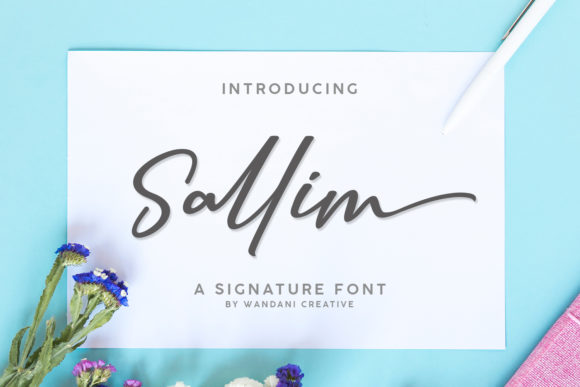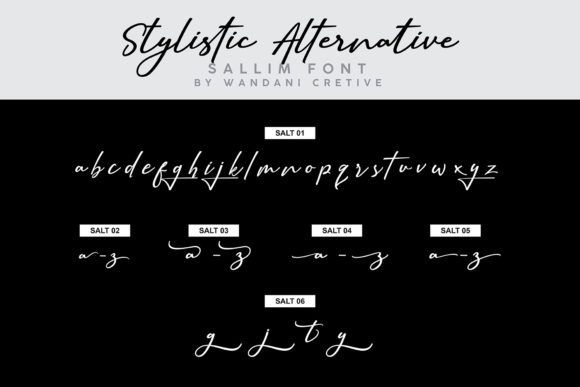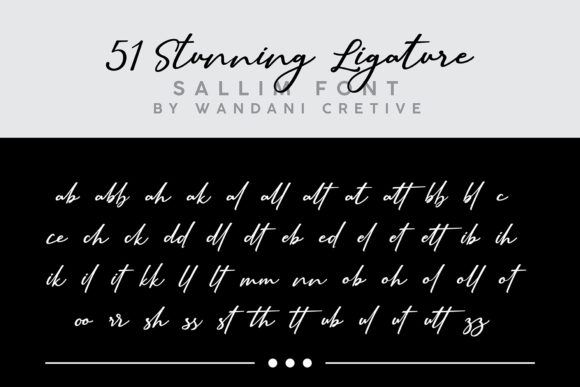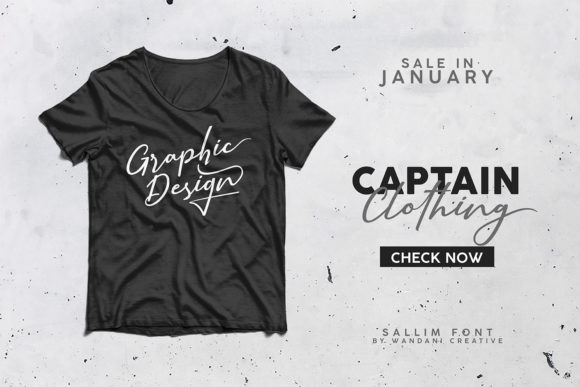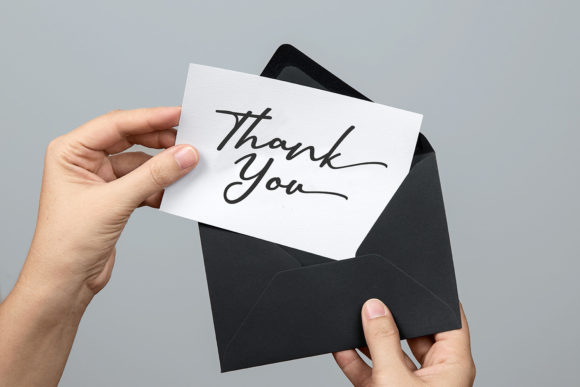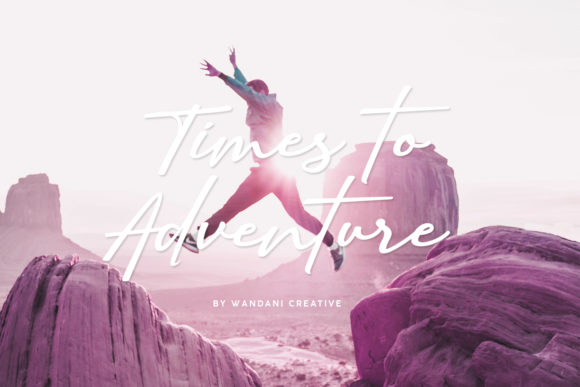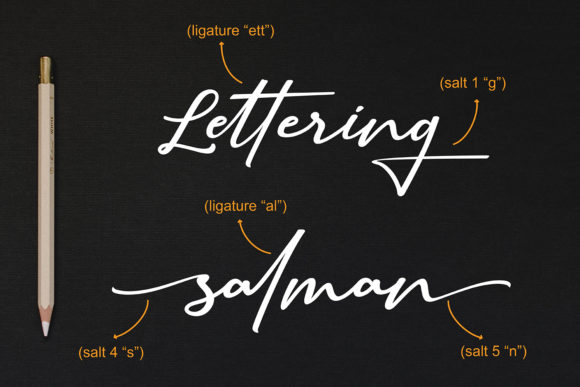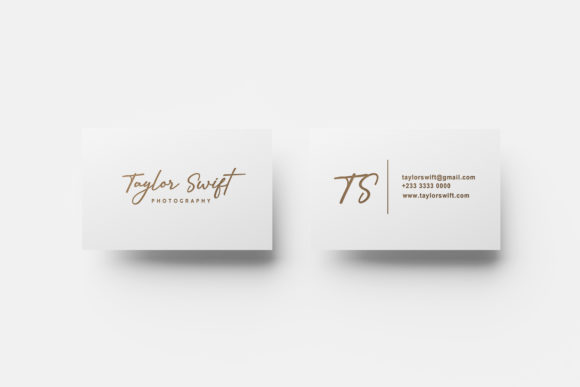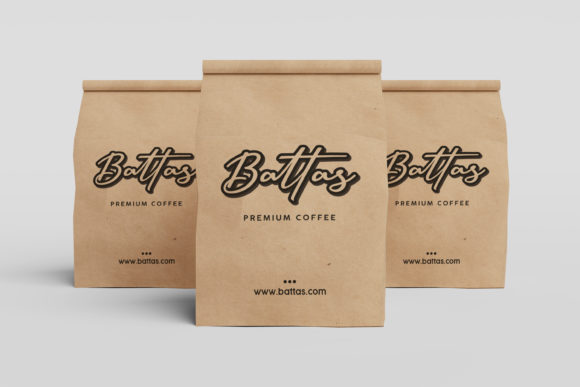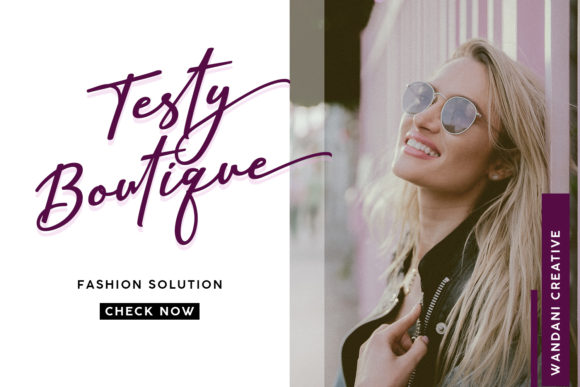
Sallim Font
About Sallim Font
The Sallim is a fresh and unique font. It has an amazing handwritten look and is perfect for logos, stationery, posters, apparel, branding, advertisements, product packaging, product designs, labels, wedding invitations, and much more!